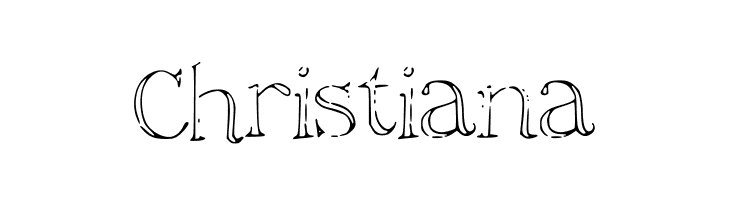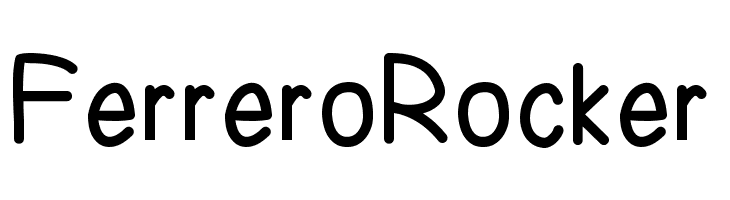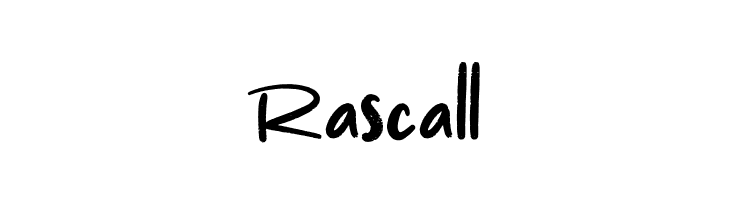
A playful, rounded font with smooth curves and a friendly appearance.
A distressed serif font with a vintage, hand-drawn appearance.
A bold, italicized font with a modern and dynamic style.
A bold, italic font with smooth, rounded edges and a modern slant.
A bold, 3D italic font with a futuristic and dynamic style.
A graceful script font with flowing, cursive strokes and decorative flourishes.
A classic serif font with elegant, high-contrast strokes and sharp serifs.
A bold, playful handwritten font with a brush-like texture.
A bold, distressed font with a rugged, vintage look.
A bold, italic font with a dynamic and modern style.